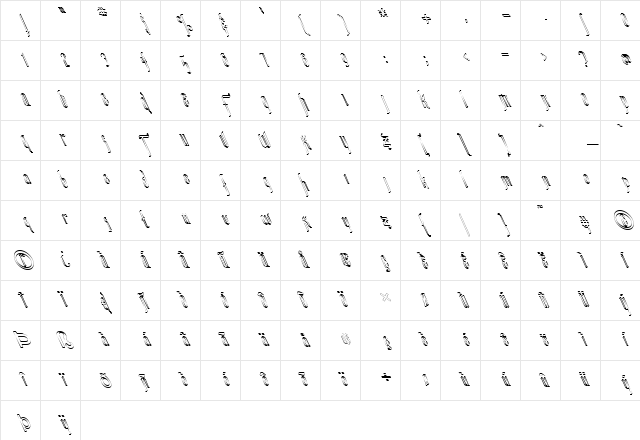
Complete FZ JAZZY 35 HOLLOW LEFTY Normal glyph index. Displaying only characters natively supported by FZ JAZZY 35 HOLLOW LEFTY Normal font.
FZ JAZZY 35 HOLLOW LEFTY is a composed and adaptable typeface that performs quietly and consistently across a wide range of design contexts.